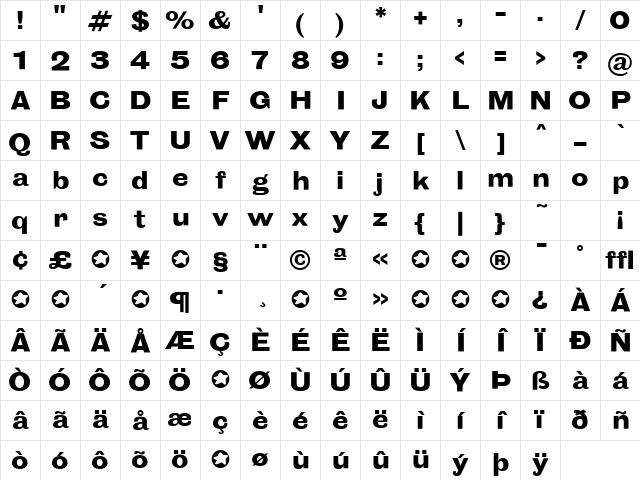
BureauGrotesque-SevenNine Regular
Foundry: The Font Bureau, Inc
Design Context for BureauGrotesque-SevenNine
BureauGrotesque-SevenNine is a composed and adaptable typeface that performs quietly and consistently across a wide range of design contexts.
Who designed the BureauGrotesque-SevenNine Regular font?
This font was published by The Font Bureau, Inc. Check the technical specs section for copyright and designer details.